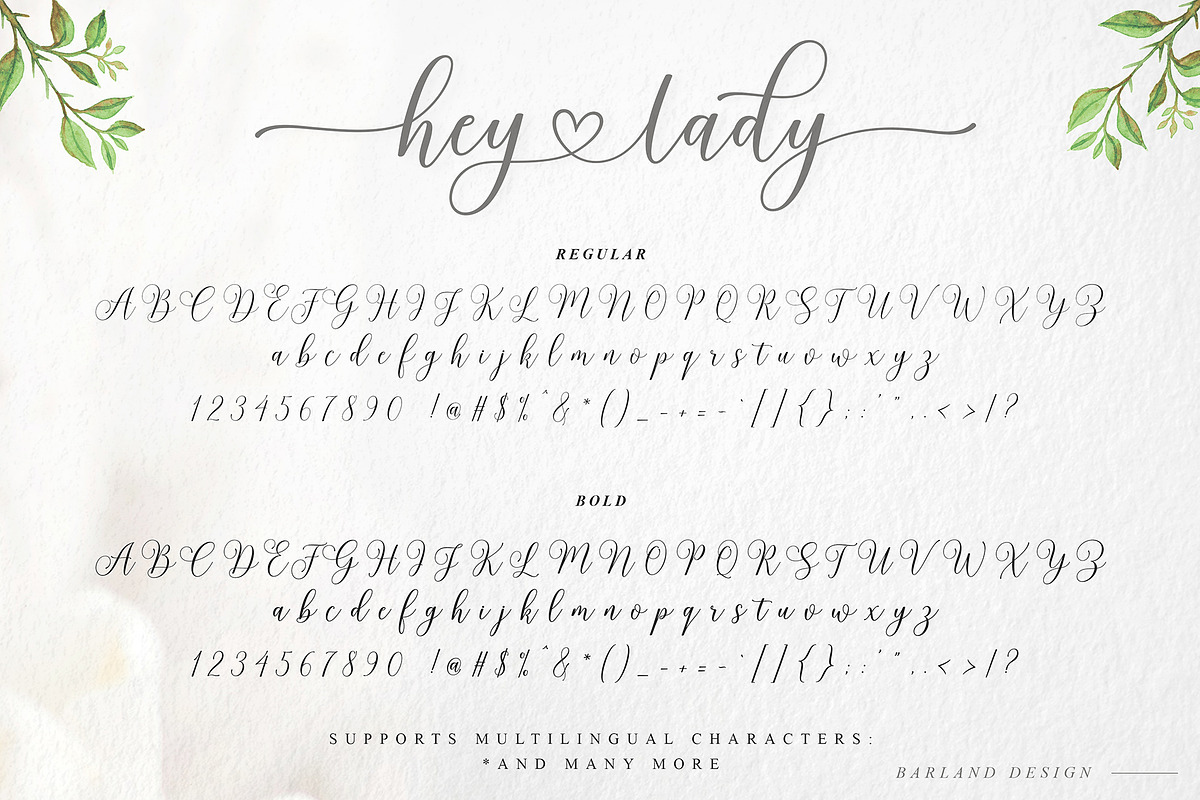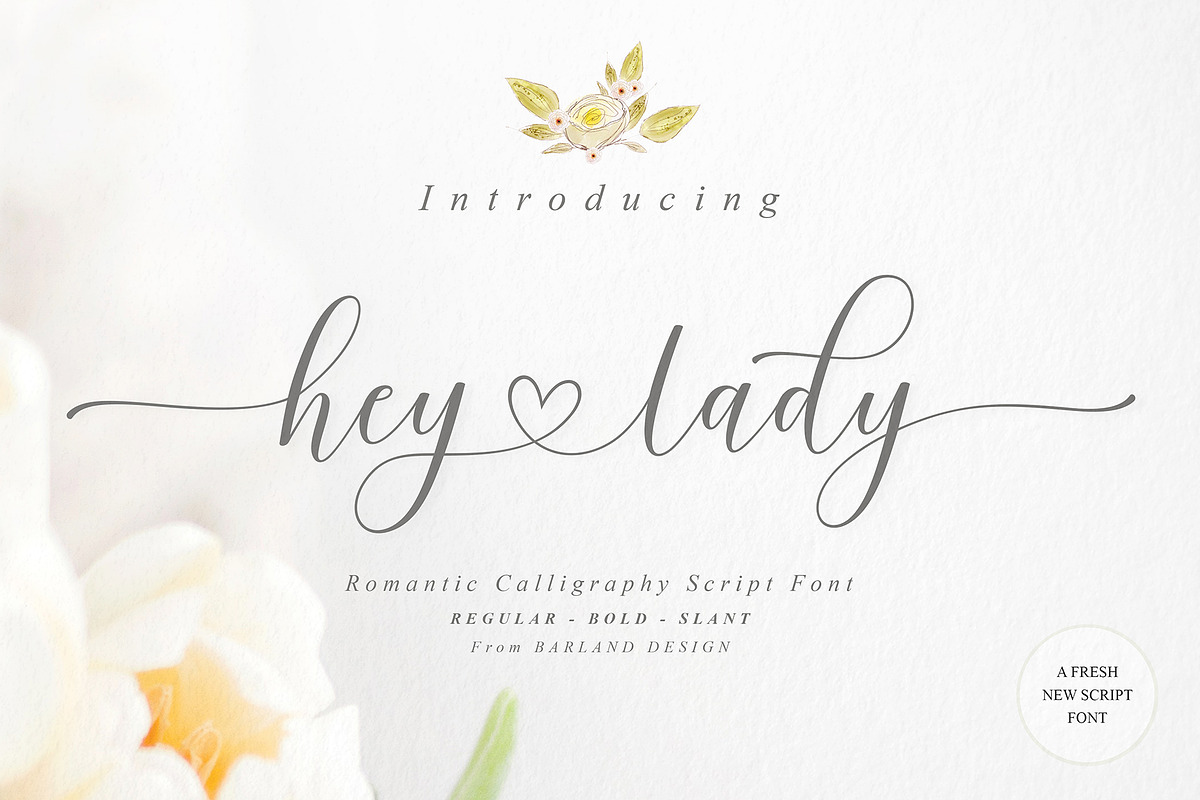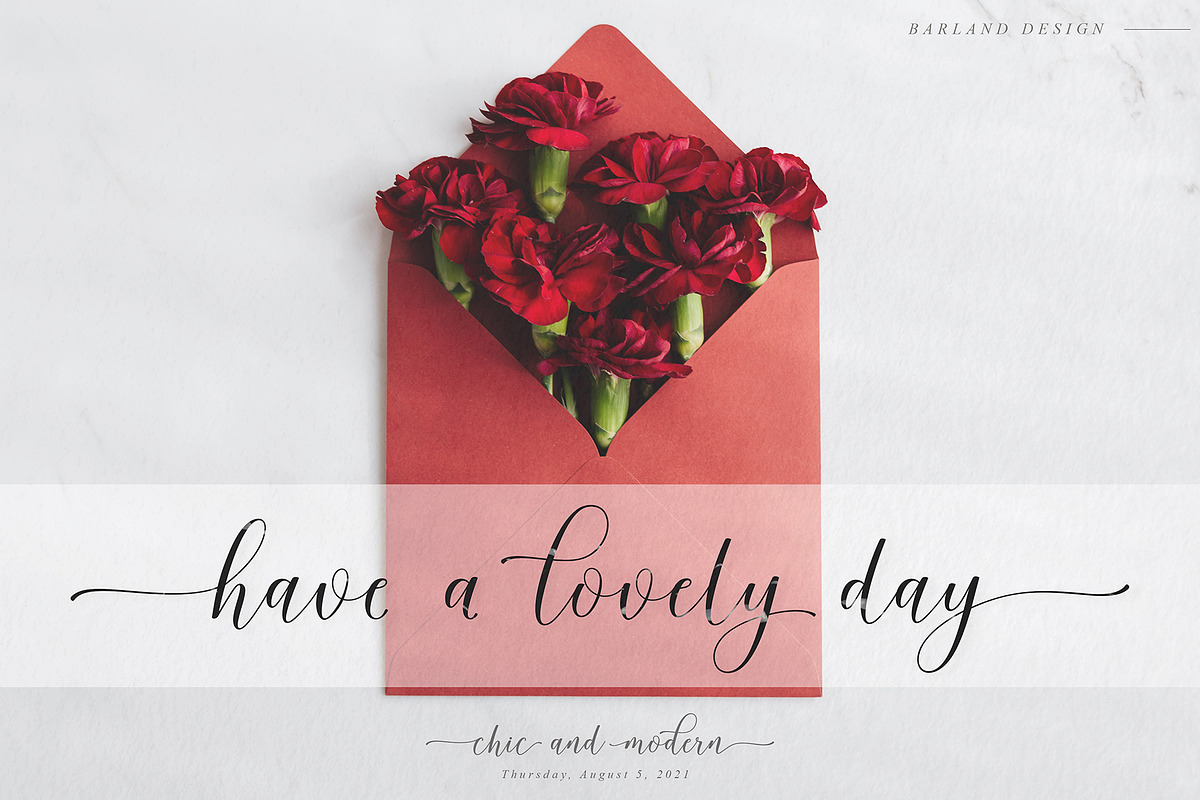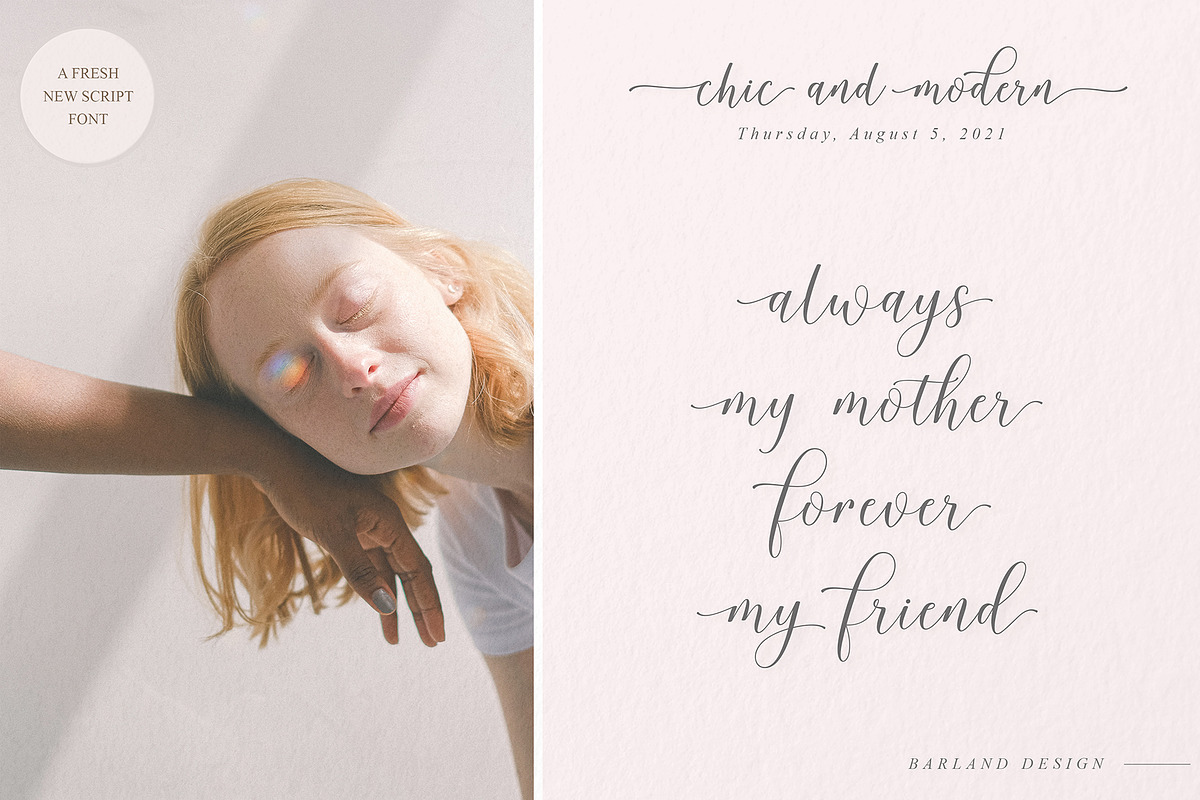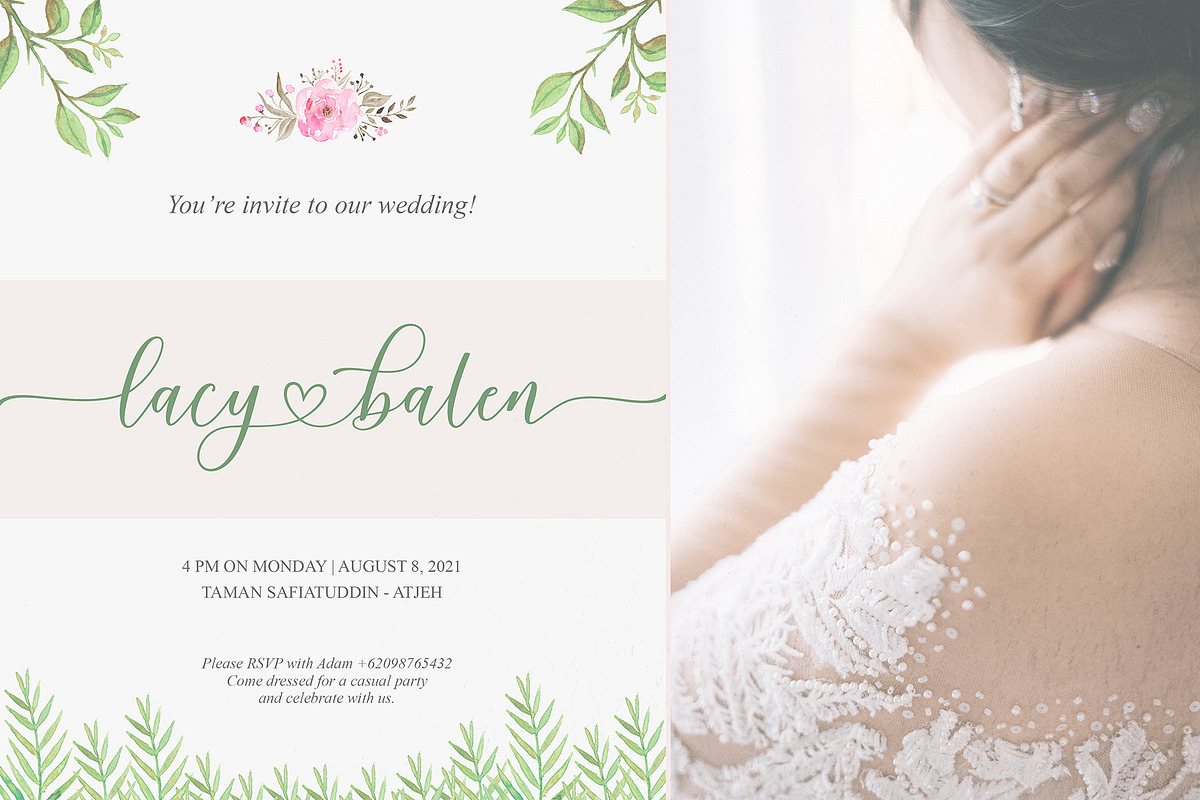
Hey Lady Script
Introduce my font Hey Lady Script is a unique blend of classic and modern font. imperfect style ups and downs, like a dance letters, smooth, clean and simple. This font perfect for wedding, event, invitation, escort card, display, logos, slider blog, custom address, stamps, packaging, greeting card, etc.
- Stylistic Set
- Support Latin Pro Character